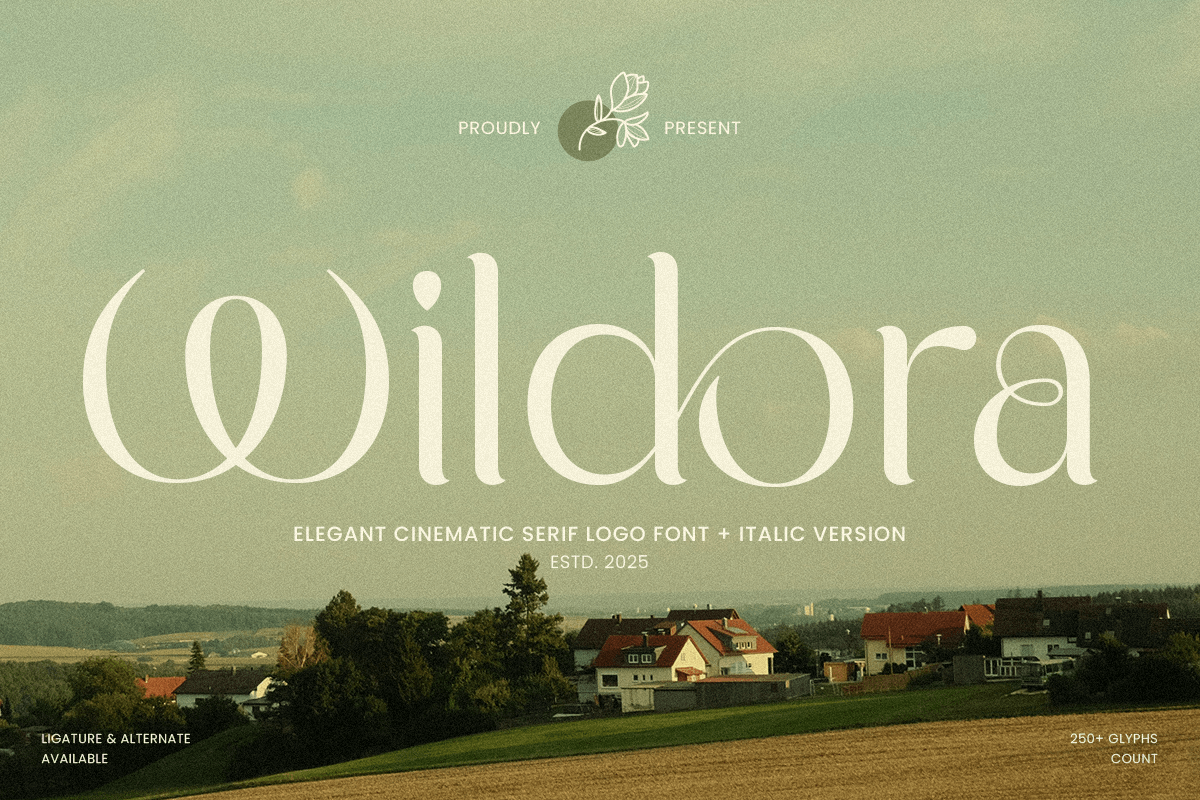
Wildora
-Cinematic Serif Logo Font
Wildora - Cinematic Serif Logo Font
Wildora is an elegant cinematic serif logo font designed for high-end branding, logos, and premium creative projects. Its refined and cinematic letterforms provide a polished, professional, and luxurious appearance, ideal for fashion, lifestyle, and editorial branding.
With its cinematic serif style, Wildora ensures readability and timeless elegance in both digital and print media, perfect for designers seeking a luxurious and sophisticated serif font.
Wildora – Elegant Cinematic Serif Logo Font Features
• Elegant and cinematic serif character set
• Available with 2 Styles, Regular and Italic Version
• Perfect for luxury branding, logos, and premium designs
• OpenType features for extra versatility